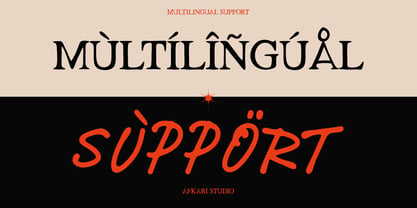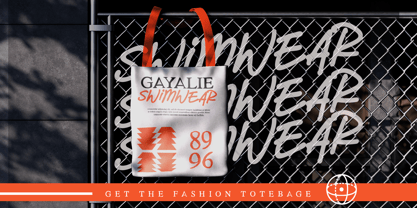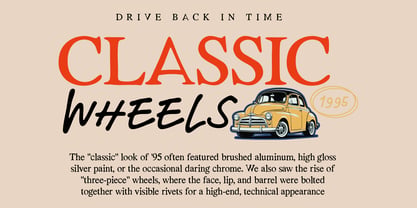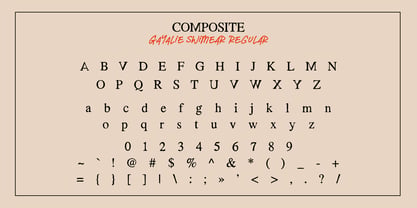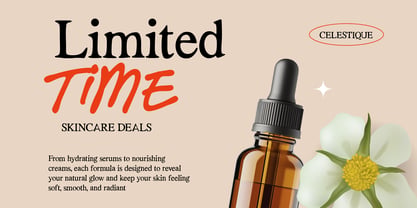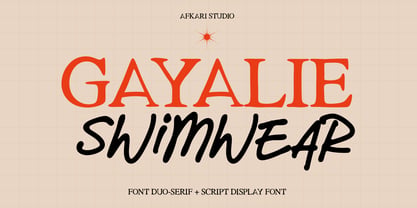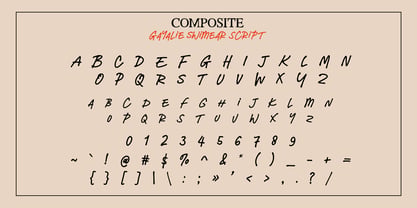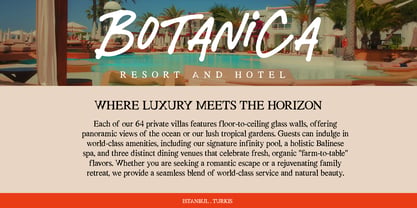
Gayalie Swimwear Serif
by Afkari Studio
The Gayalie Swimwear Serif Font Family was designed by Musthafa Kamal Emje and published by Afkari Studio. Gayalie Swimwear Serif contains 2 styles and family package options. More about this family
Gayalie Swimwear is a stylish serif and script font duo designed to deliver a perfect balance between elegance and femininity. Inspired by modern fashion branding and luxury swimwear aesthetics, this font pairing combines a clean, refined serif with a flowing handwritten script—creating beautiful contrast and visual harmony in every design. This font duo is ideal for fashion logos, swimwear brands, beauty products, lifestyle branding, packaging, social media content, editorials, and wedding-inspired designs. The serif font provides structure and sophistication, while the script adds softness, movement, and a personal touch. Gayalie Swimwear helps designers create luxurious, feminine, and modern branding with ease—no extra font pairing required. Highlighted Features: - Uppercase, Lowercase, Number, and Punctuation - Special alternates and ligatures - Works on PC & Mac - Simple installations - Accessible in Adobe Illustrator, Adobe Photoshop, Adobe InDesign, and even work on Microsoft Word - Fully accessible without additional design software. - Mültîlíñgúãl Sùppört for; ä ö ü Ä Ö Ü ß ¿ ¡ Create timeless and stylish designs with Gayalie Swimwear – Serif & Script Font Duo Typeface, a refined pairing made for modern luxury branding.
Designers: Musthafa Kamal Emje
Foundry: Afkari Studio